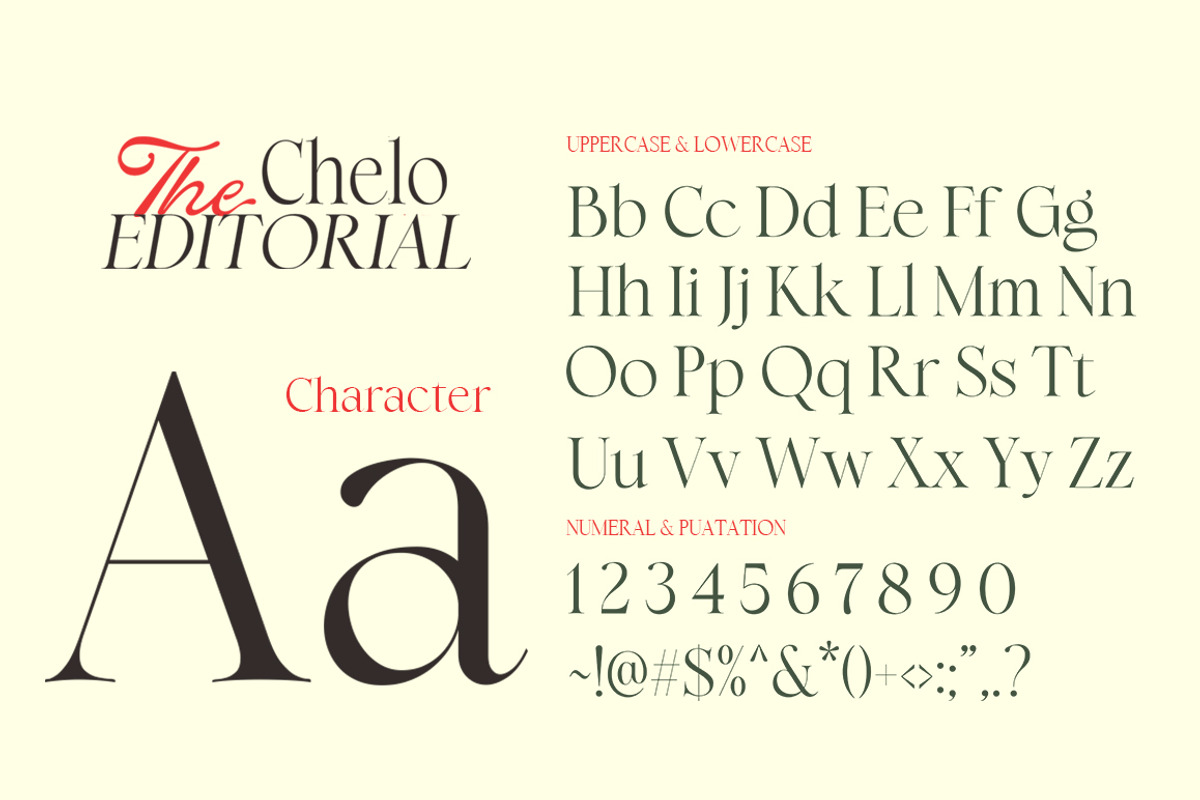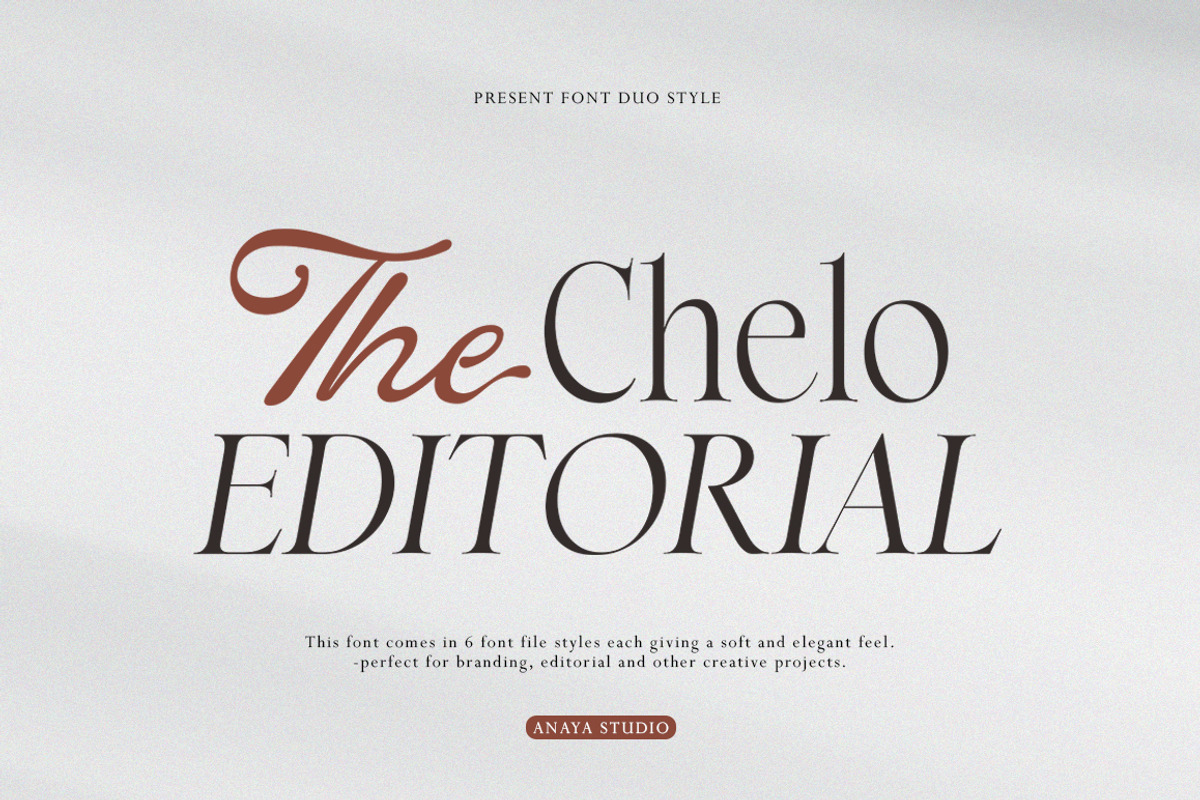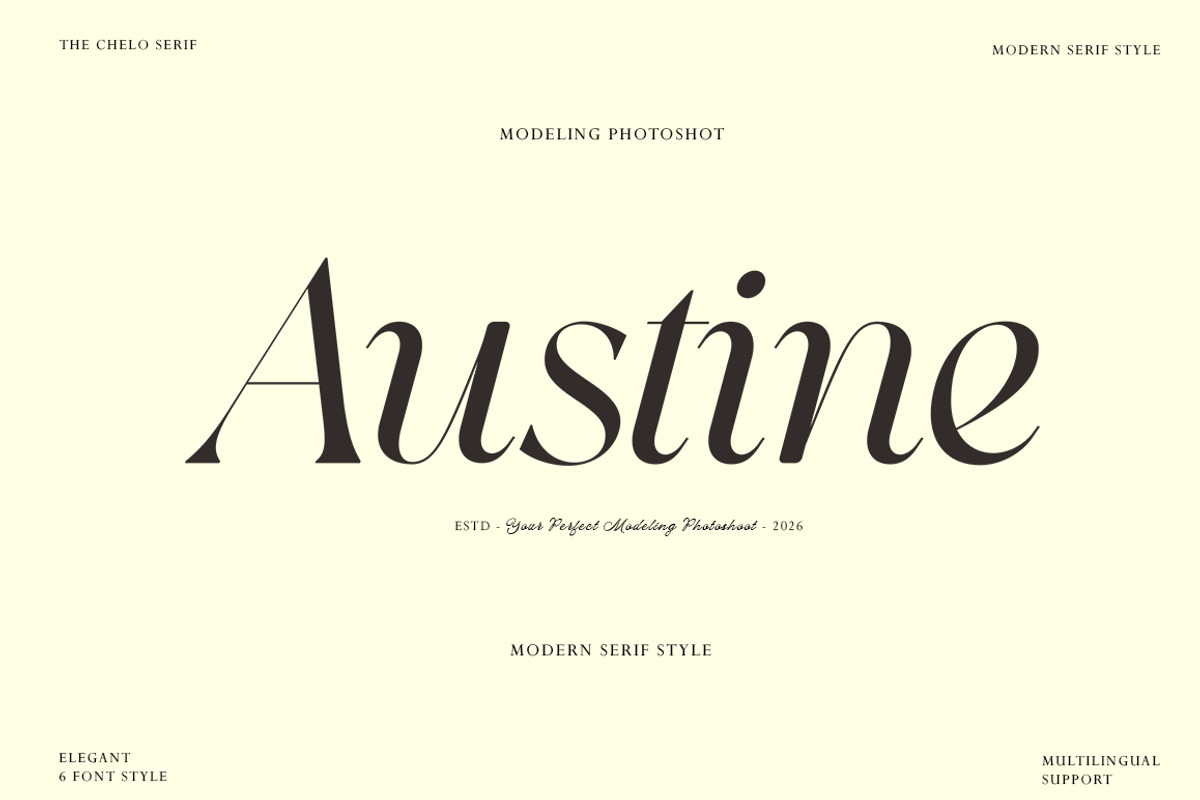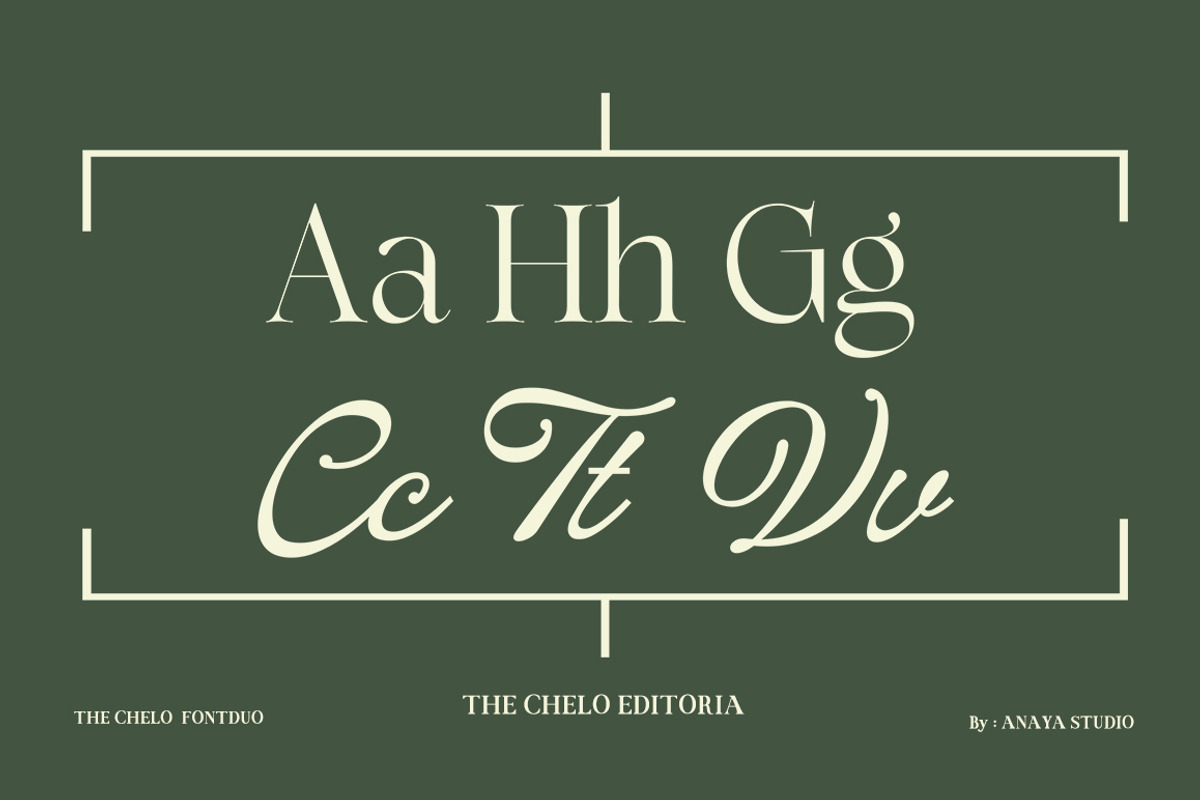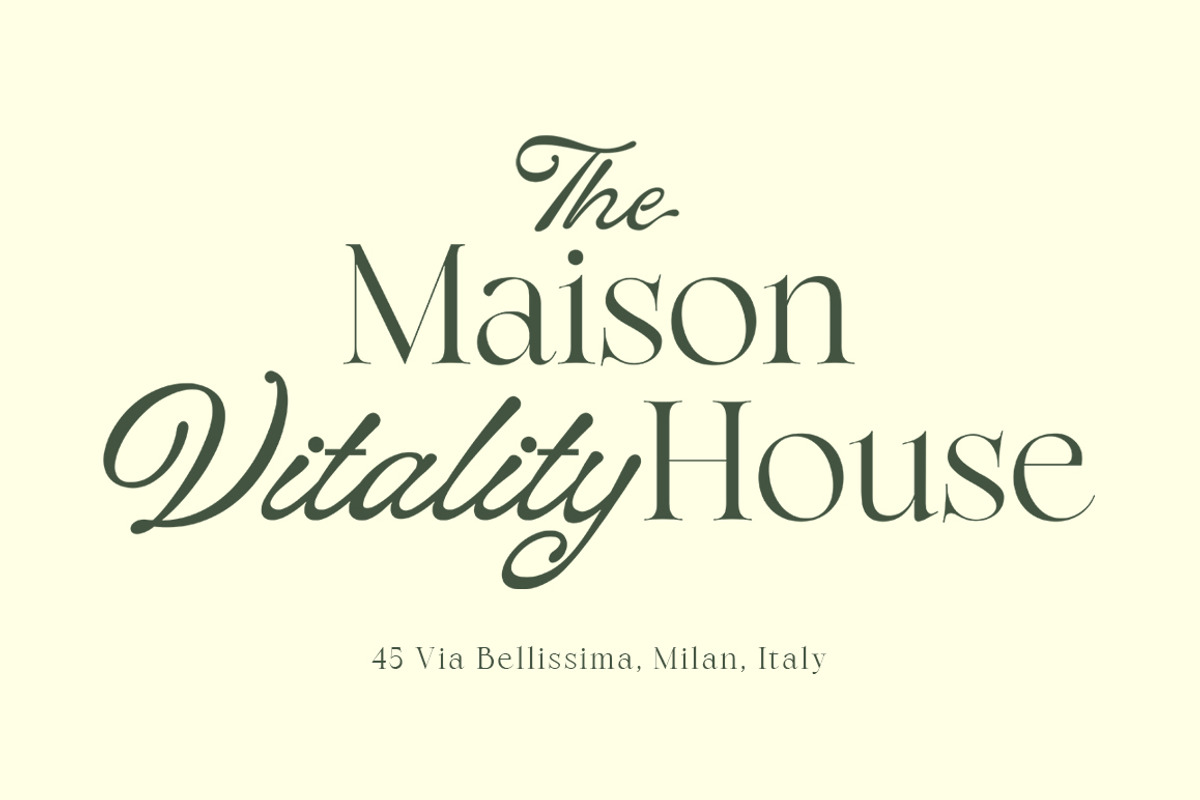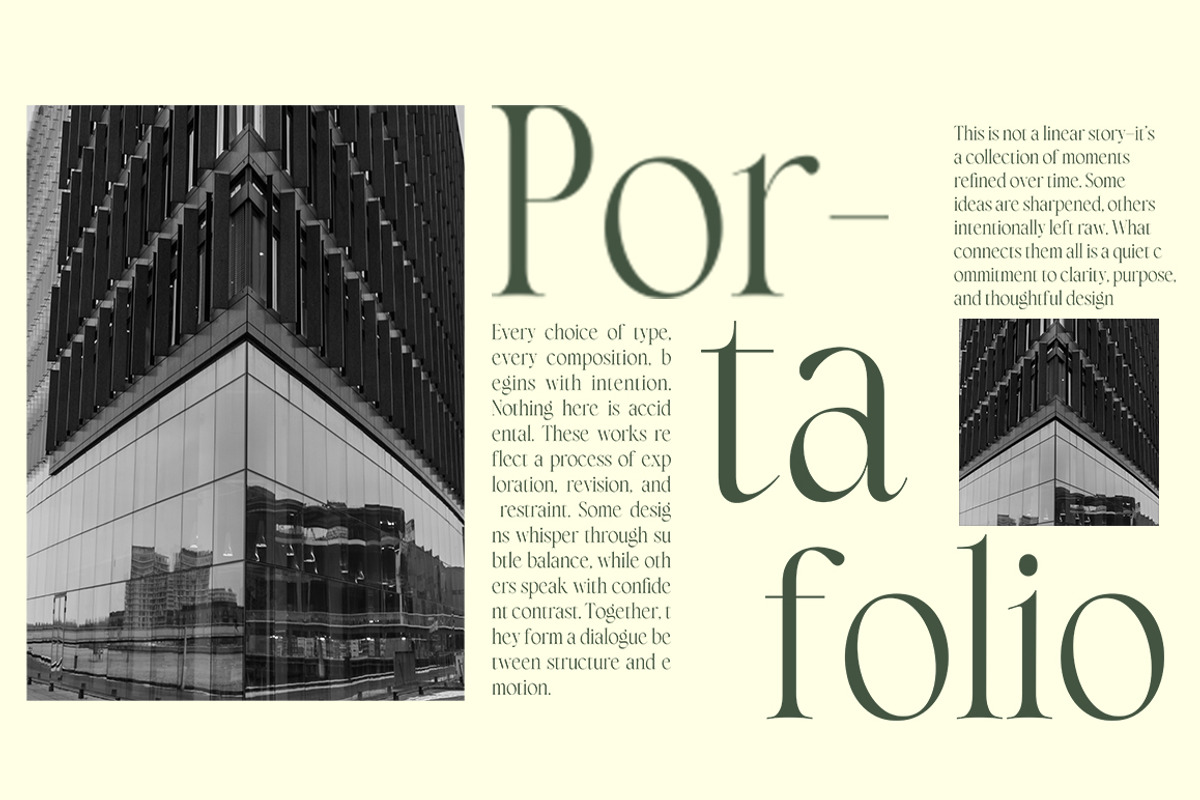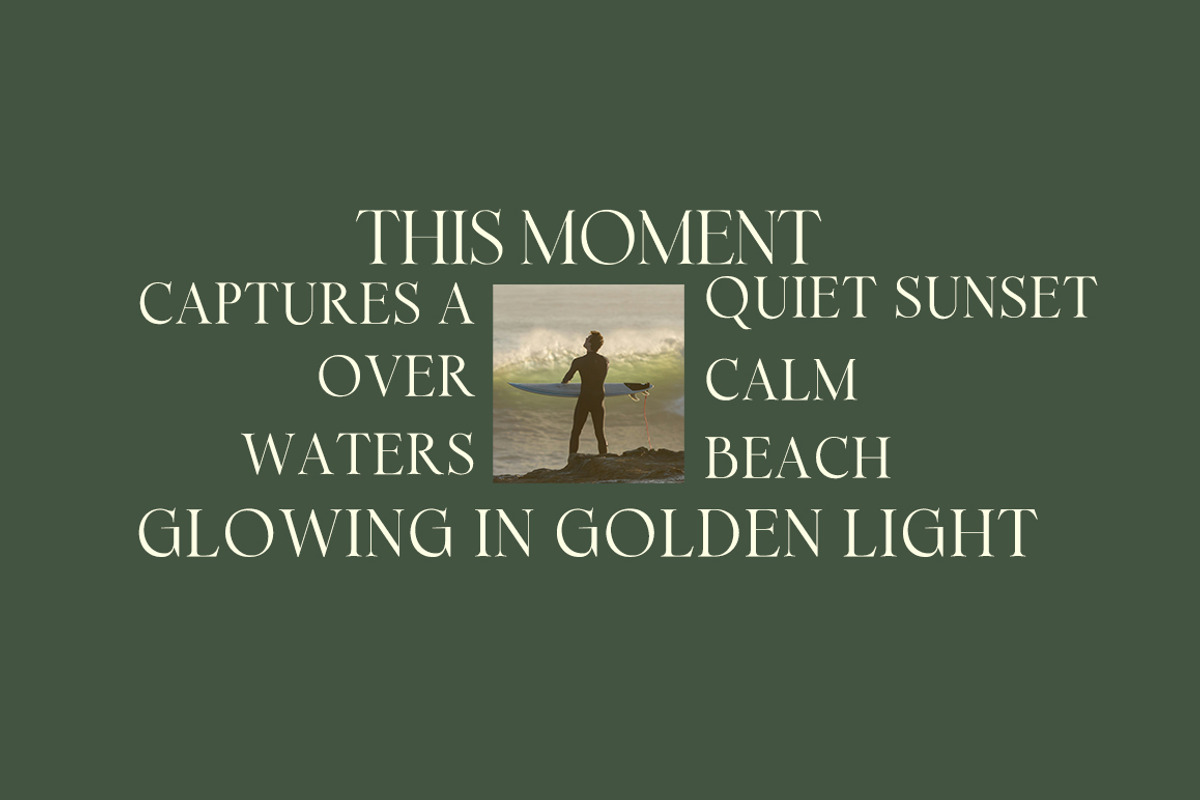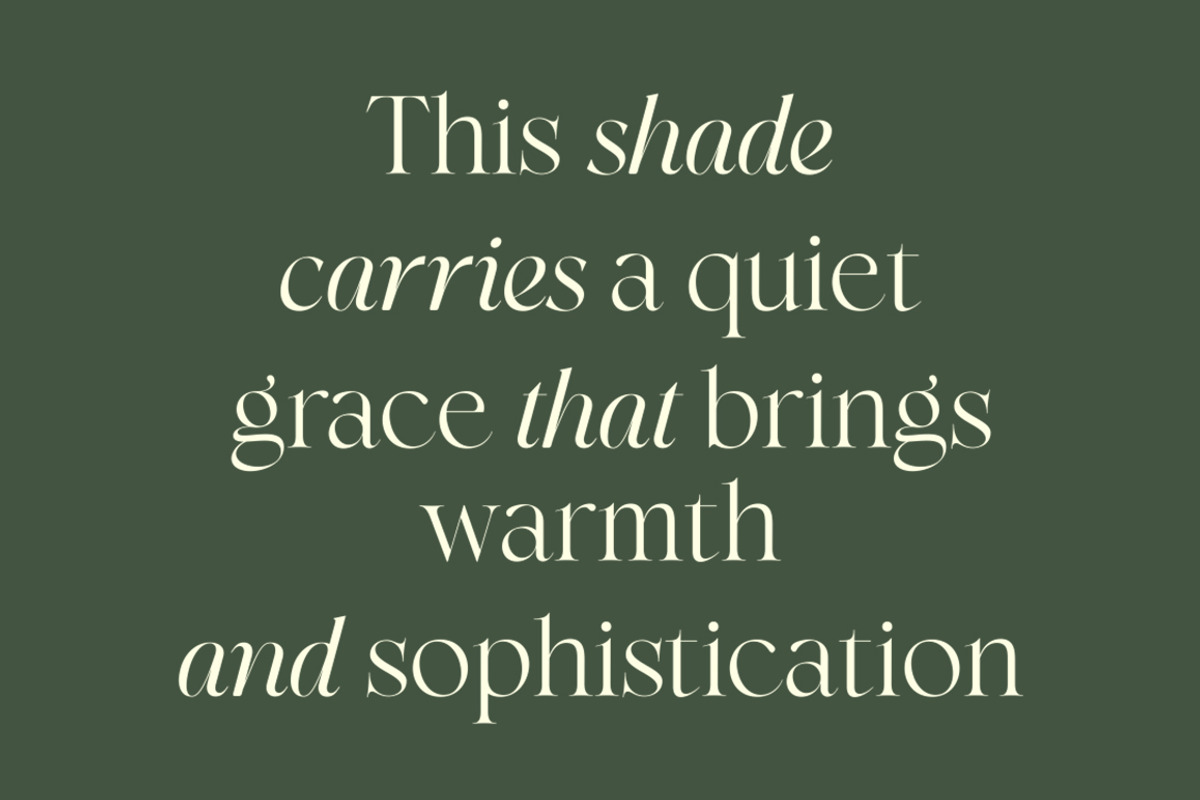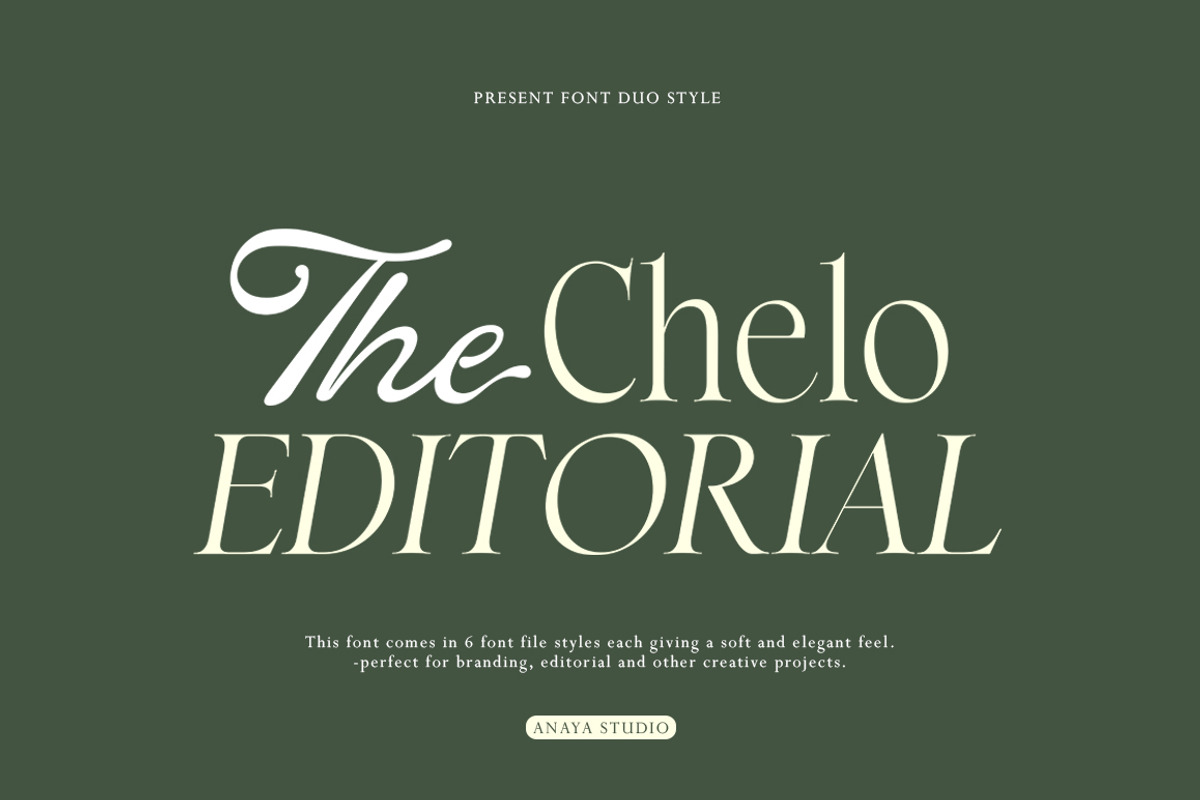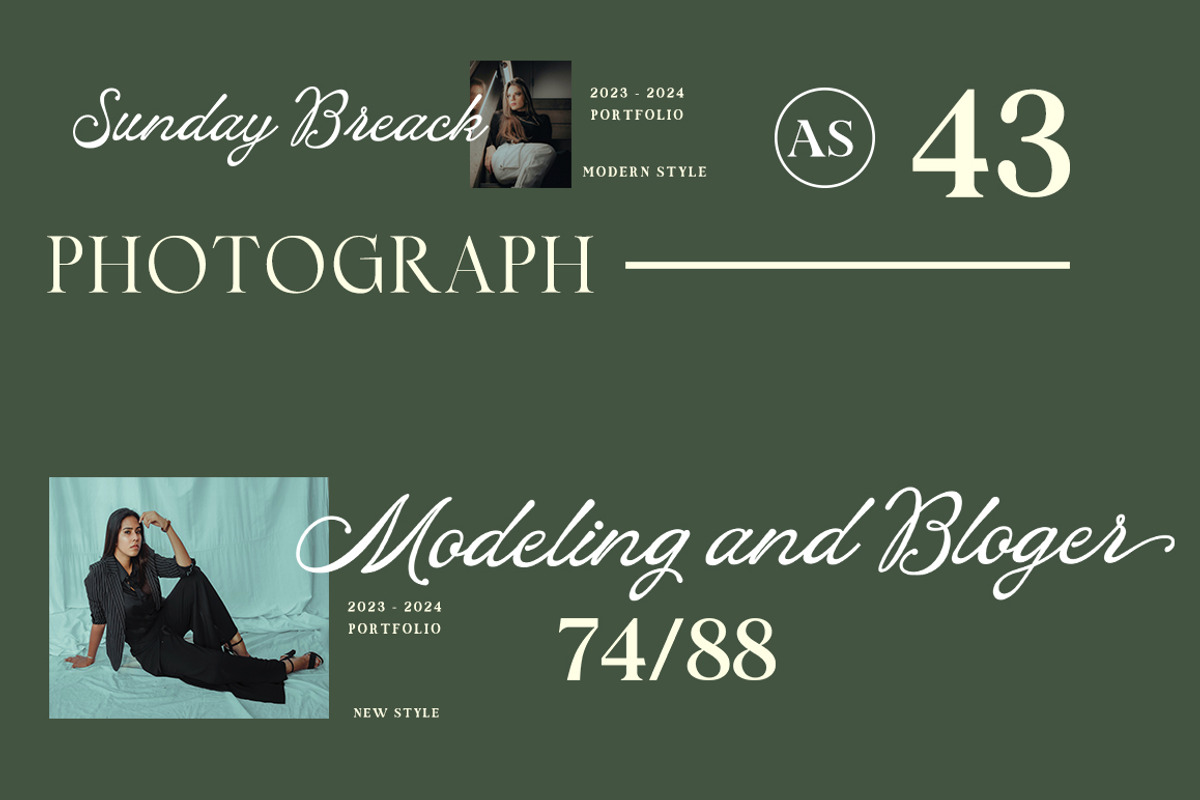
The Chelo Editorial
Introducing a Timeless Typeface with Editorial Elegance Crafted with a perfect harmony between graceful script and refined serif, this font duo delivers a luxurious and sophisticated aesthetic. The flowing curves bring softness and personality, while the classic serif adds structure and authority — creating a balanced, high-end visual identity. Designed for modern branding, editorial layouts, fashion campaigns, wedding stationery, packaging, and premium logo design, this typeface embodies elegance in every detail. Each character is thoughtfully shaped to ensure smooth readability while maintaining its artistic charm. Whether you are building a luxury brand or creating stylish visual content, this font will elevate your design with confidence, class, and timeless beauty